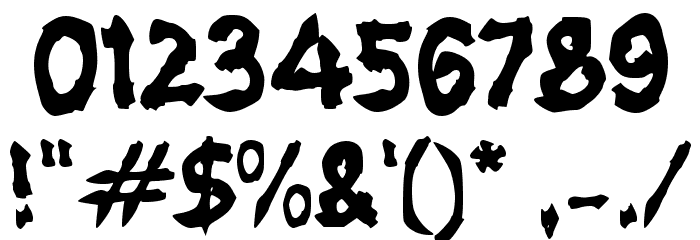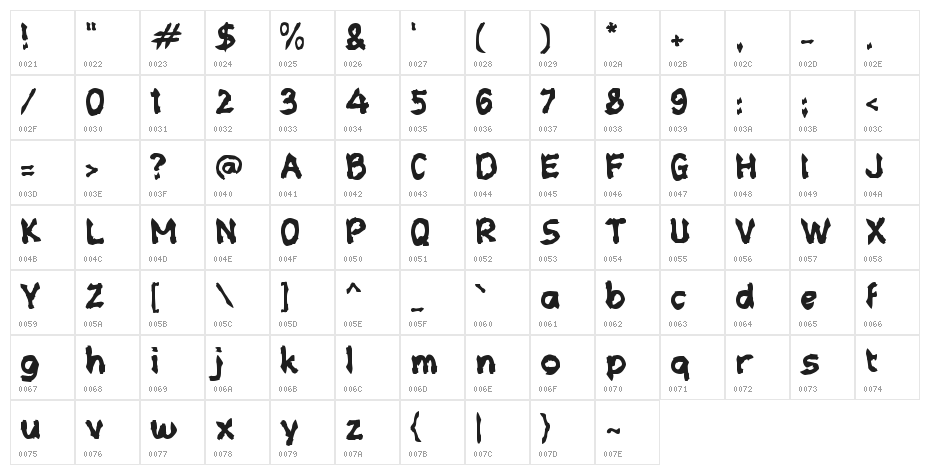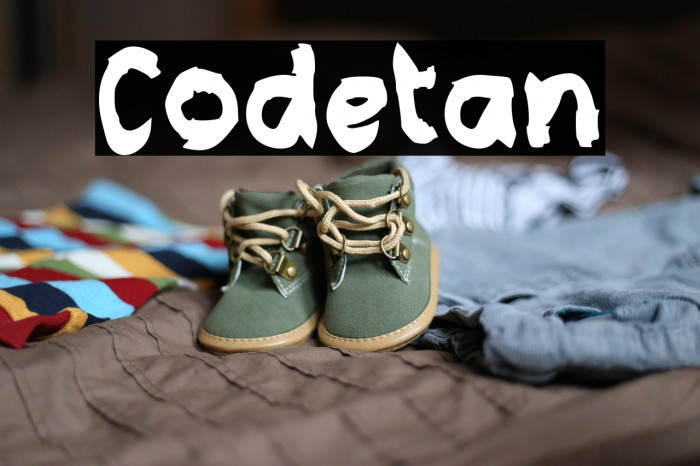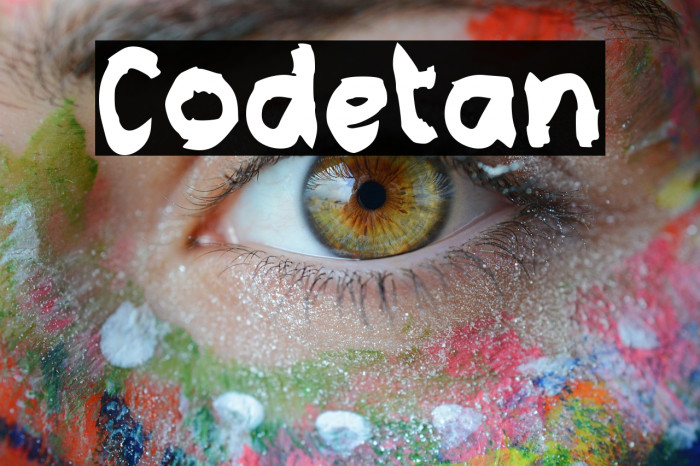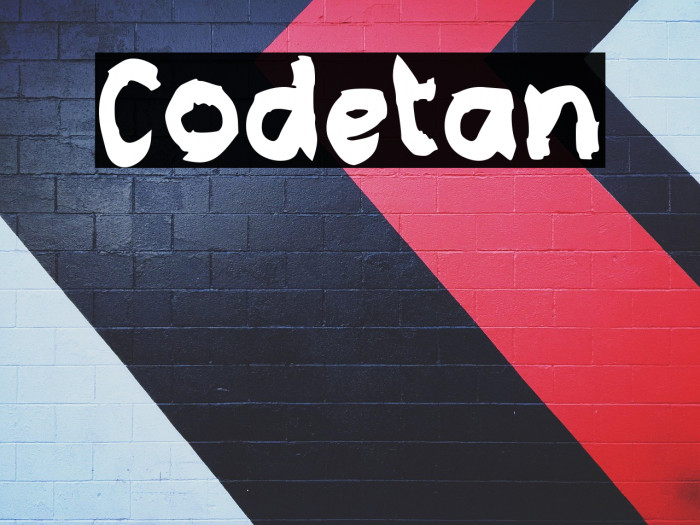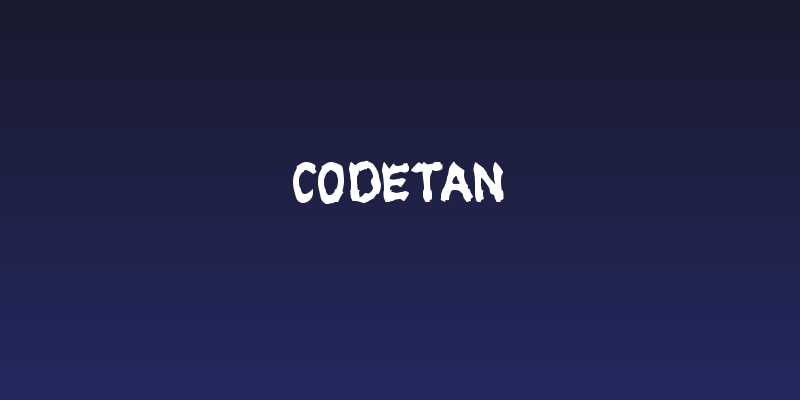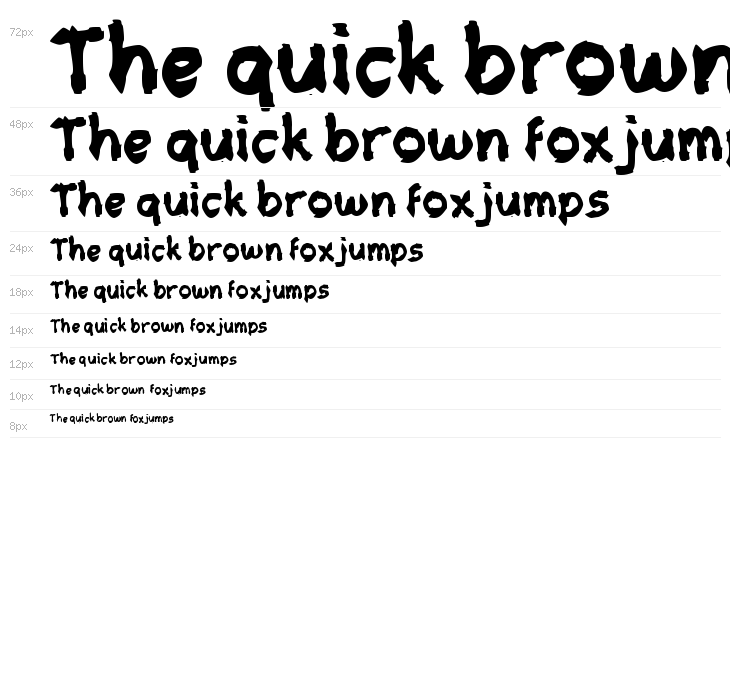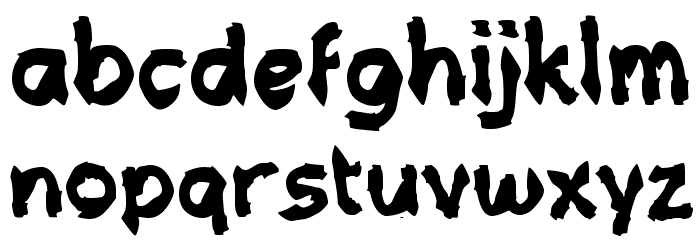
Codetan Font
Codetan Description
This font exhibits a bold and expressive style, characterized by its thick, uneven strokes and a hand-drawn appearance. The letters have a rugged, organic feel, with irregular edges that give it a dynamic and energetic look. The uppercase and lowercase letters maintain a consistent style, with the lowercase being slightly more compact. Numbers and special characters follow the same aesthetic, ensuring a cohesive appearance across all glyphs. This font's unique and artistic design makes it stand out, offering a playful yet assertive presence.
| Proposed Projects | Ideal for creative projects such as posters, album covers, and branding that require a bold, artistic touch. |